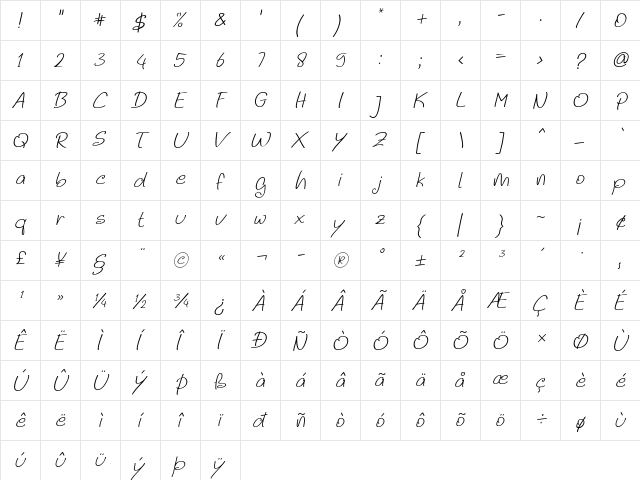
Noela Sherly Light Italic
Italic · 7NTypes Adyfo; Situjuh Nazara ·
Foundry 7NTypes
Foundry7NTypes
DesignerAdyfo; Situjuh Nazara
Design Context for Noela Sherly Light Typeface
Noela Sherly Light takes a measured approach to typography — its balanced proportions and neutral character make it a reliable workhorse for both digital and print work. Its italic angle brings a sense of urgency and motion to the letterforms. The delicate stroke weight brings airiness and refinement to layouts.
Pro Tip: Use Noela Sherly Light for emphasis, pull quotes, and subheadings where its slanted energy can add rhythm to the layout.